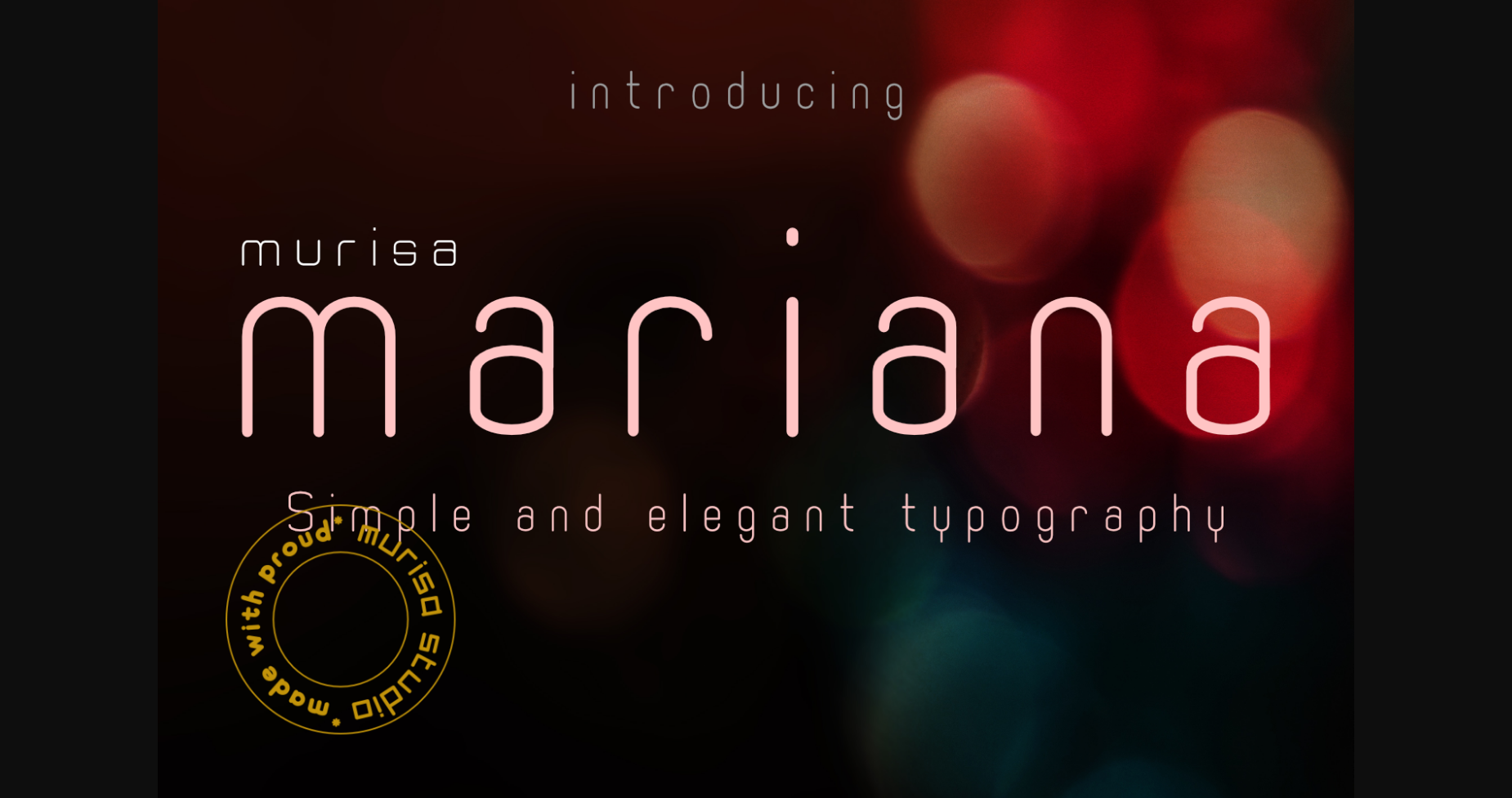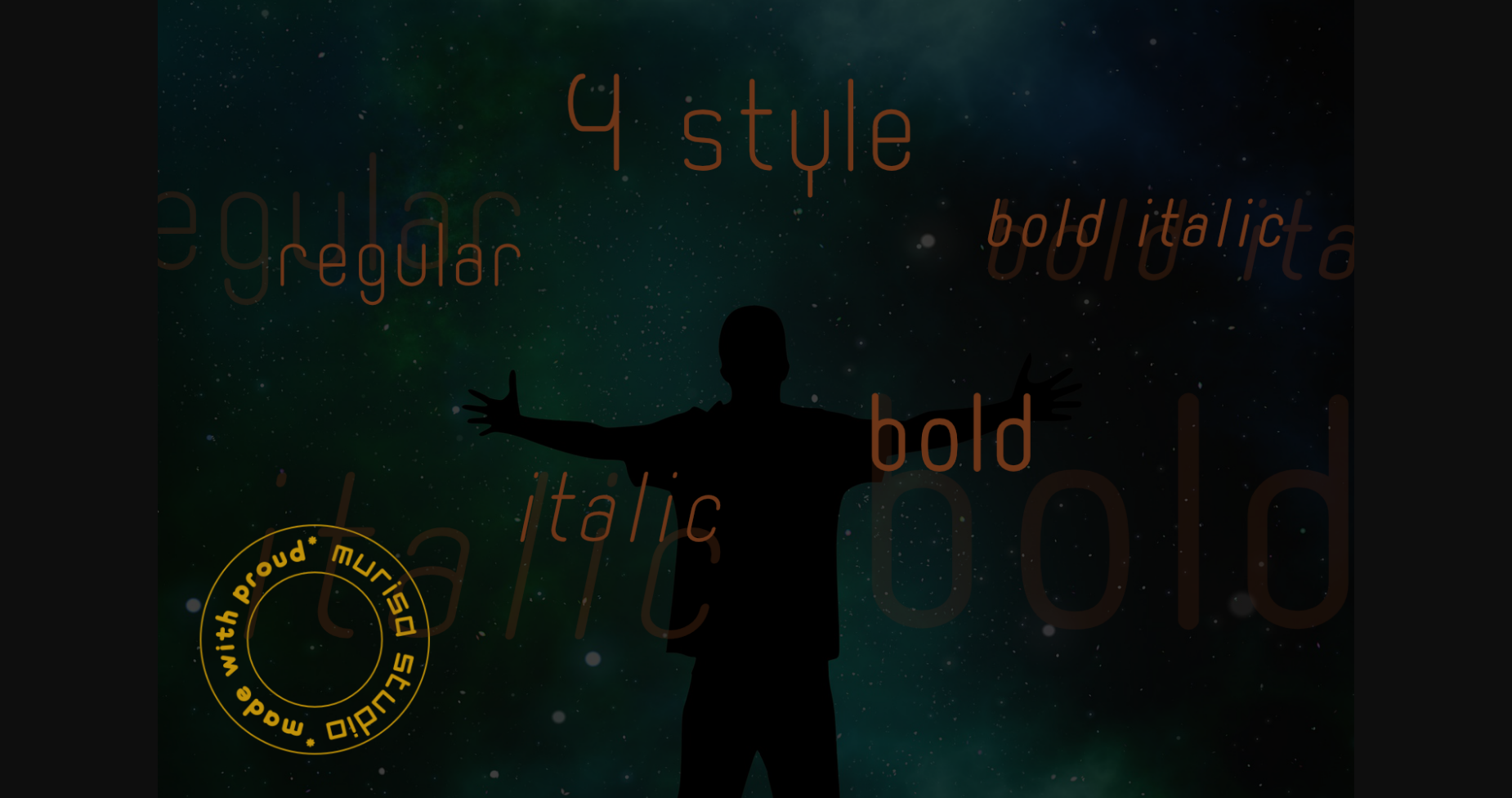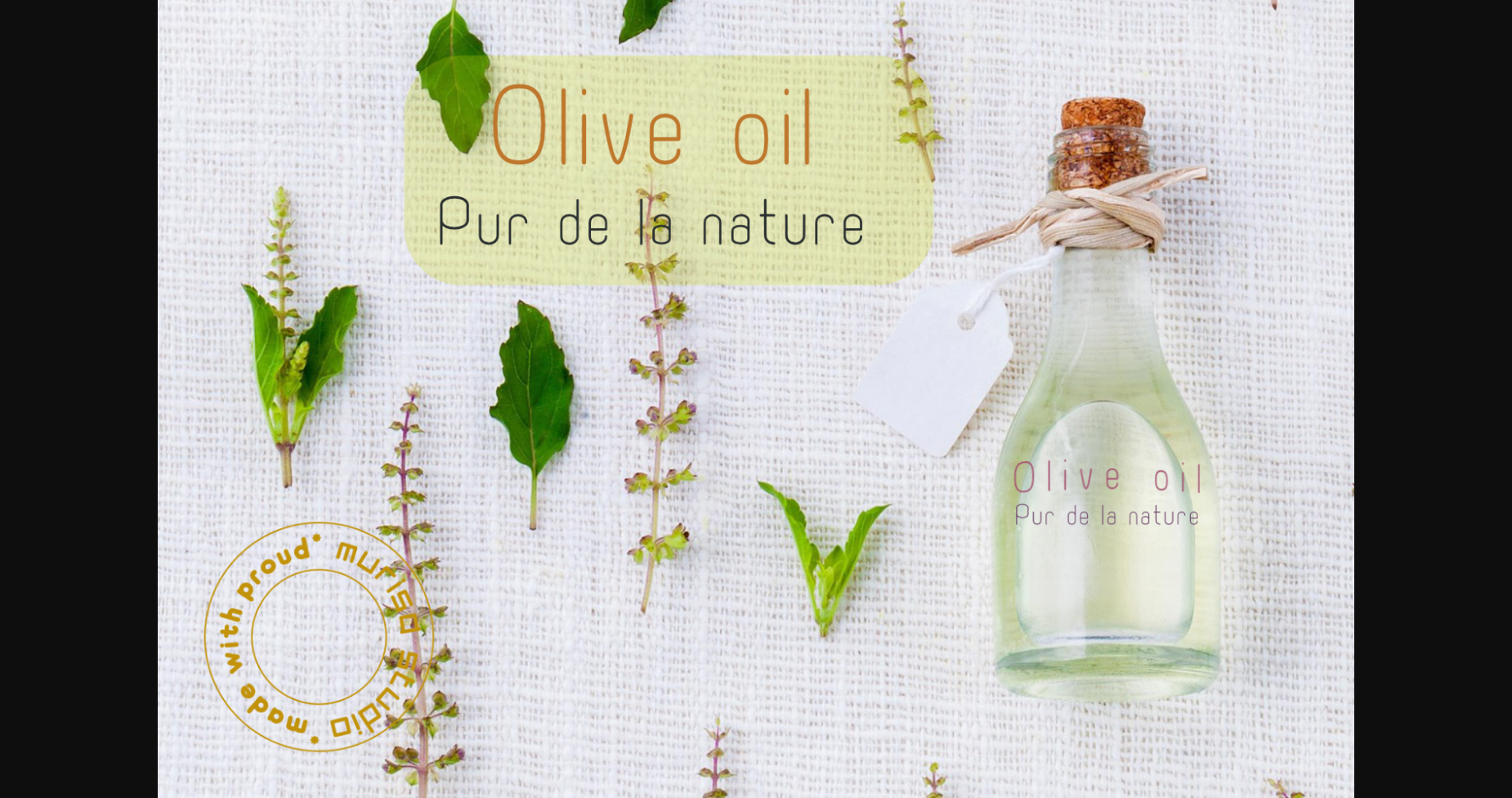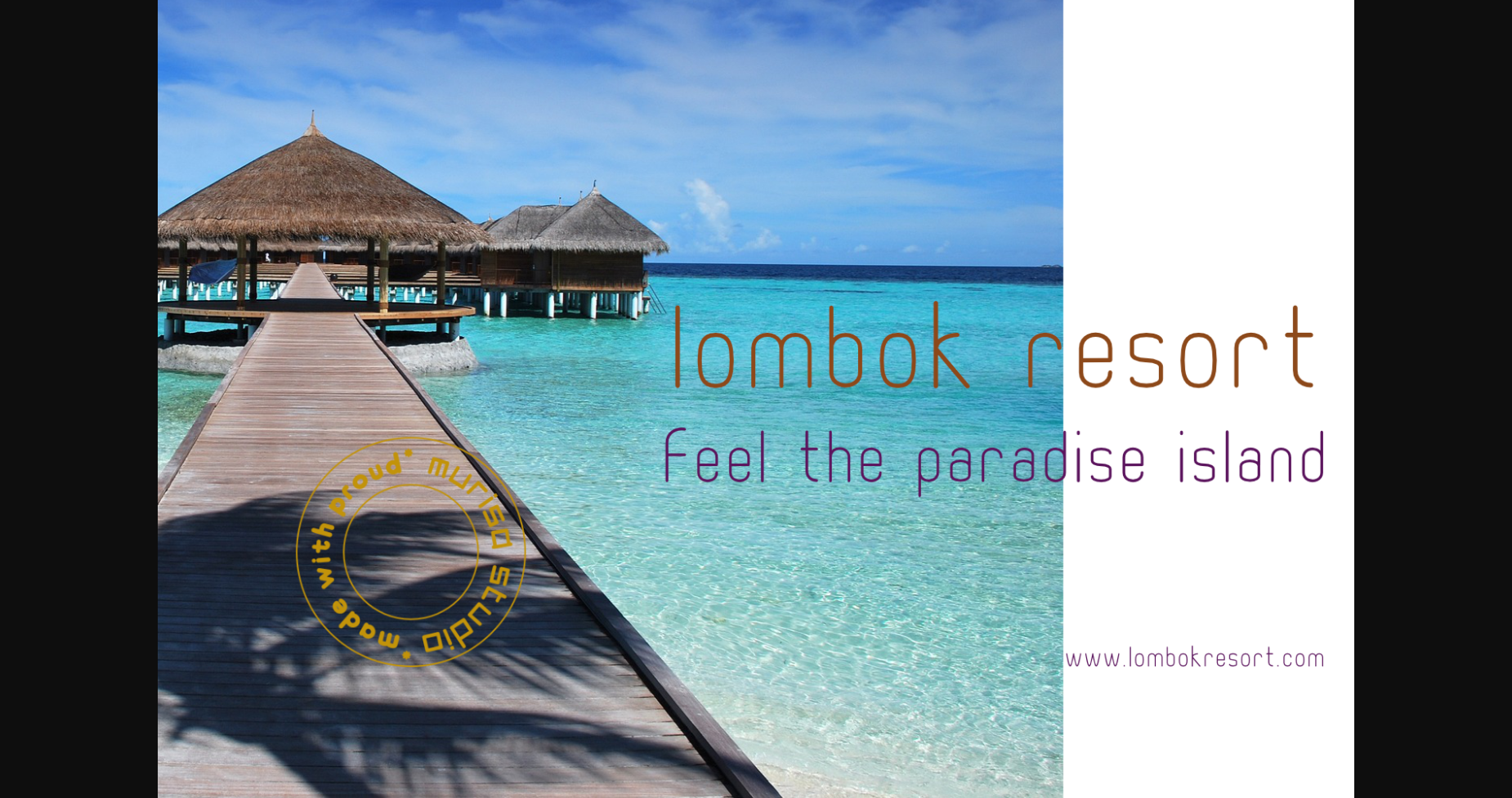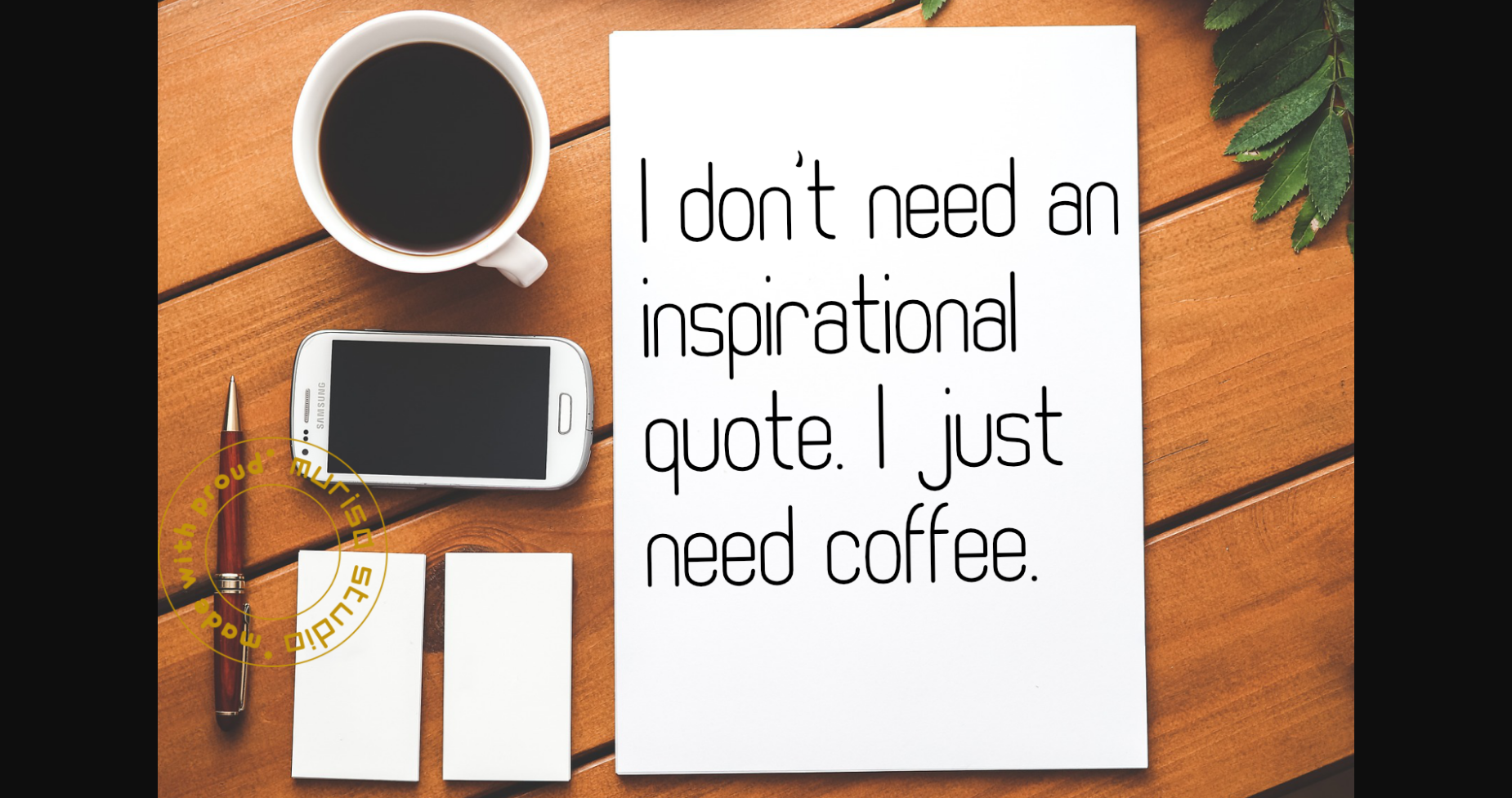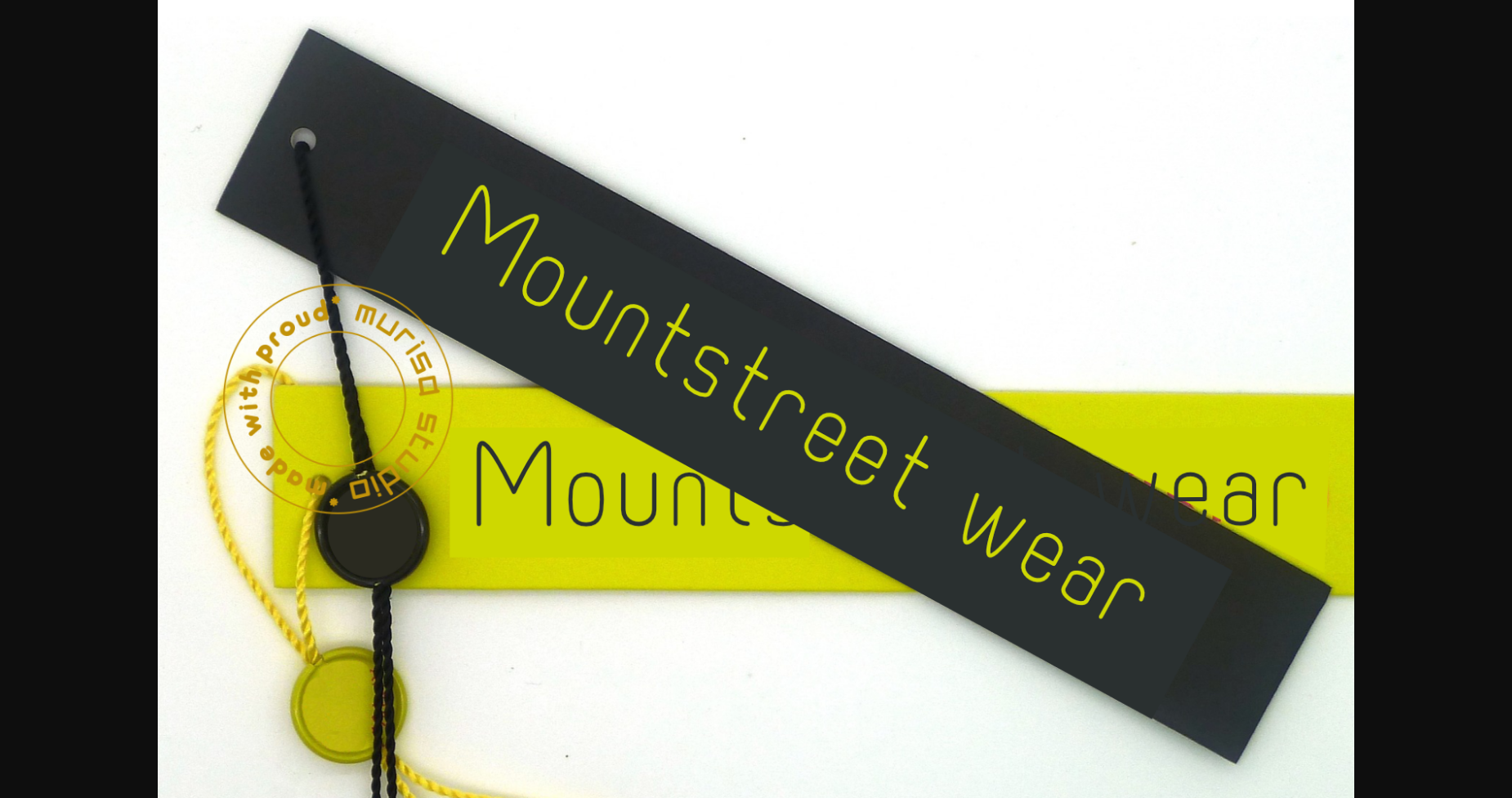
HomeSans Serif FontsMariana Font Sans Serif Fonts Mariana Font FacebookXPinterestWhatsApp 1 of 8 ... Mariana Font Poster 2... Mariana Font Poster 3... Mariana Font Poster 4... Mariana Font Poster 5... Mariana Font Poster 6... Mariana Font Poster 7... Mariana Font Poster 8... About Mariana Font Mariana is a minimal and neat sans serif font. It can easily be matched to an incredibly large set of projects, so add it to your creative ideas and notice how it makes them stand out! DOWNLOAD NOW People also explored Welcome Vintage Font The Shallow Font St.patricks Day Butter Spice Font Aish Font Simple Thich Font Quantum Script Font Hello Marlisa Font Guttentag Font 271 0 TagsMarianaMariana Font Previous articleFlorida FontNext articleNickels Font LEAVE A REPLY Cancel reply Comment: Please enter your comment! Name:* Please enter your name here Email:* You have entered an incorrect email address! Please enter your email address here Website: Save my name, email, and website in this browser for the next time I comment. Personal Use Free Borg Personal Use Free Read more about this font Blue Highway Personal Use Free Read more about this font BD Pipe Personal Use Free Read more about this font Elsabetha Personal Use Free Read more about this font BLOG How to Cut Any Font on Cricut: Convert a Font to SVG (Free) Turn any font into a clean SVG so it cuts crisp on Cricut - a quick 3-step workflow using a free font-to-SVG tool. Free Fonts Risk: Why Free Fonts Can Be Dangerous for Designers The 10 Best Handwriting Fonts to Add Personality to Your Designs Exploring Font Trends